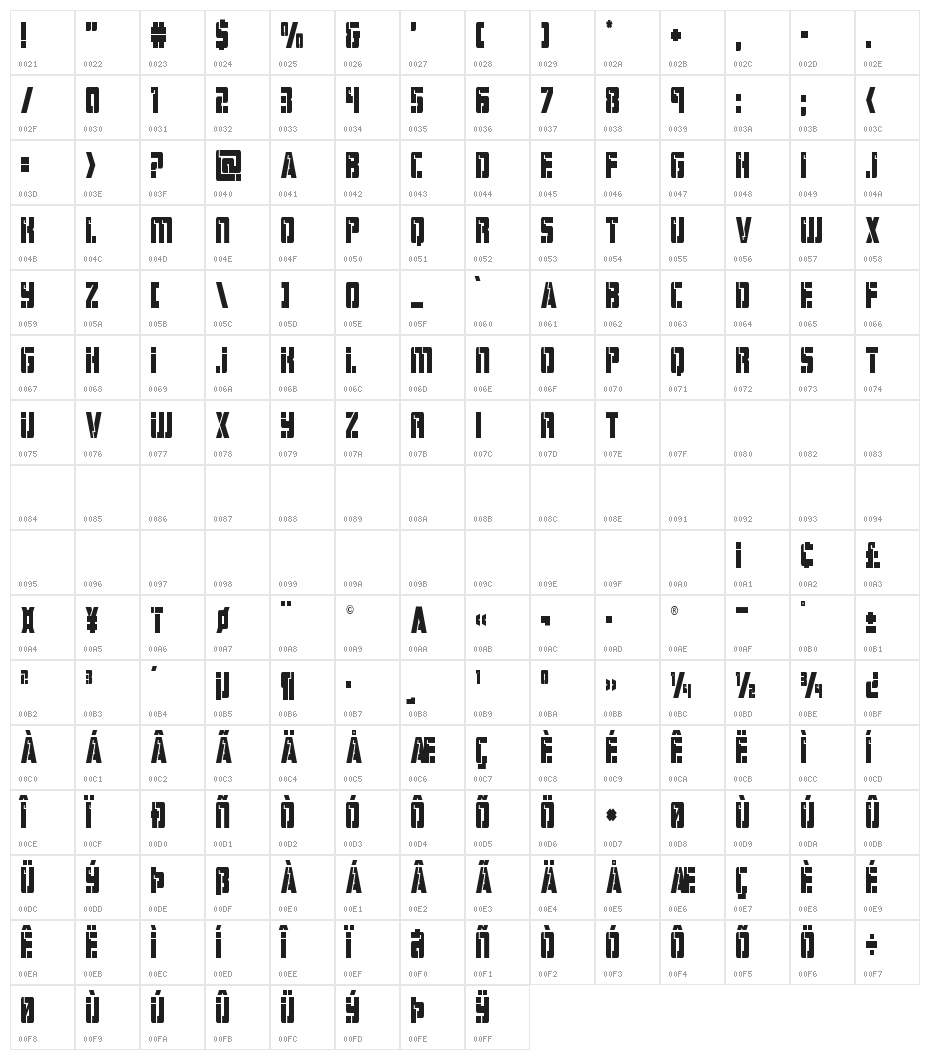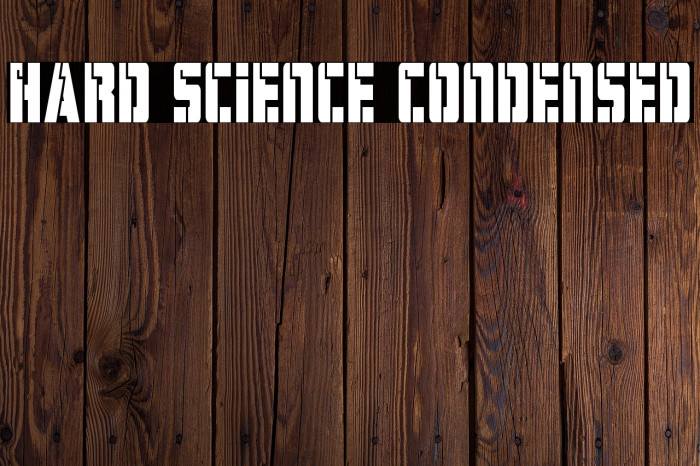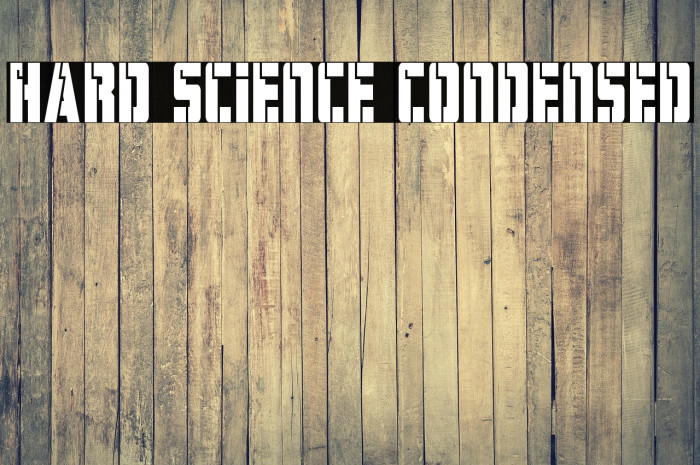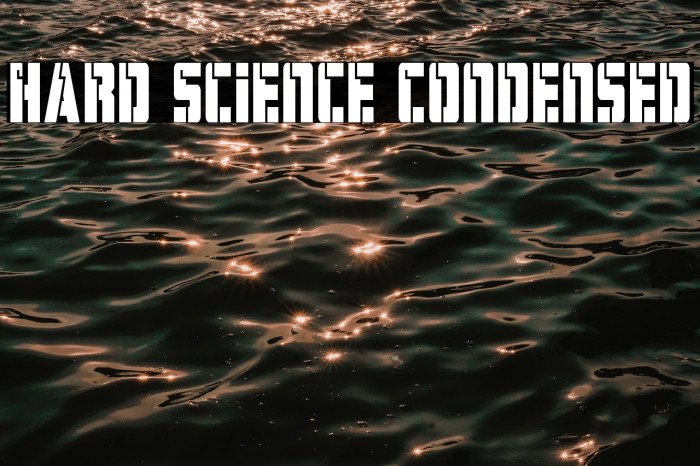
Hard Science Condensed Font
Hard Science Condensed Description
This font exhibits a bold, futuristic design with a condensed structure, characterized by sharp angles and geometric shapes. The uppercase and lowercase letters maintain a uniform height, enhancing its compact appearance. The numerals and special characters follow the same stylistic cues, ensuring consistency across all glyphs. The font's design is reminiscent of industrial and technological themes, making it suitable for projects that require a modern and edgy aesthetic. Its strong visual impact is achieved through thick strokes and minimal spacing between characters, which contributes to its dense and powerful look.
| Proposed Projects | Ideal for technology branding, sci-fi posters, video game titles, and industrial-themed designs. |